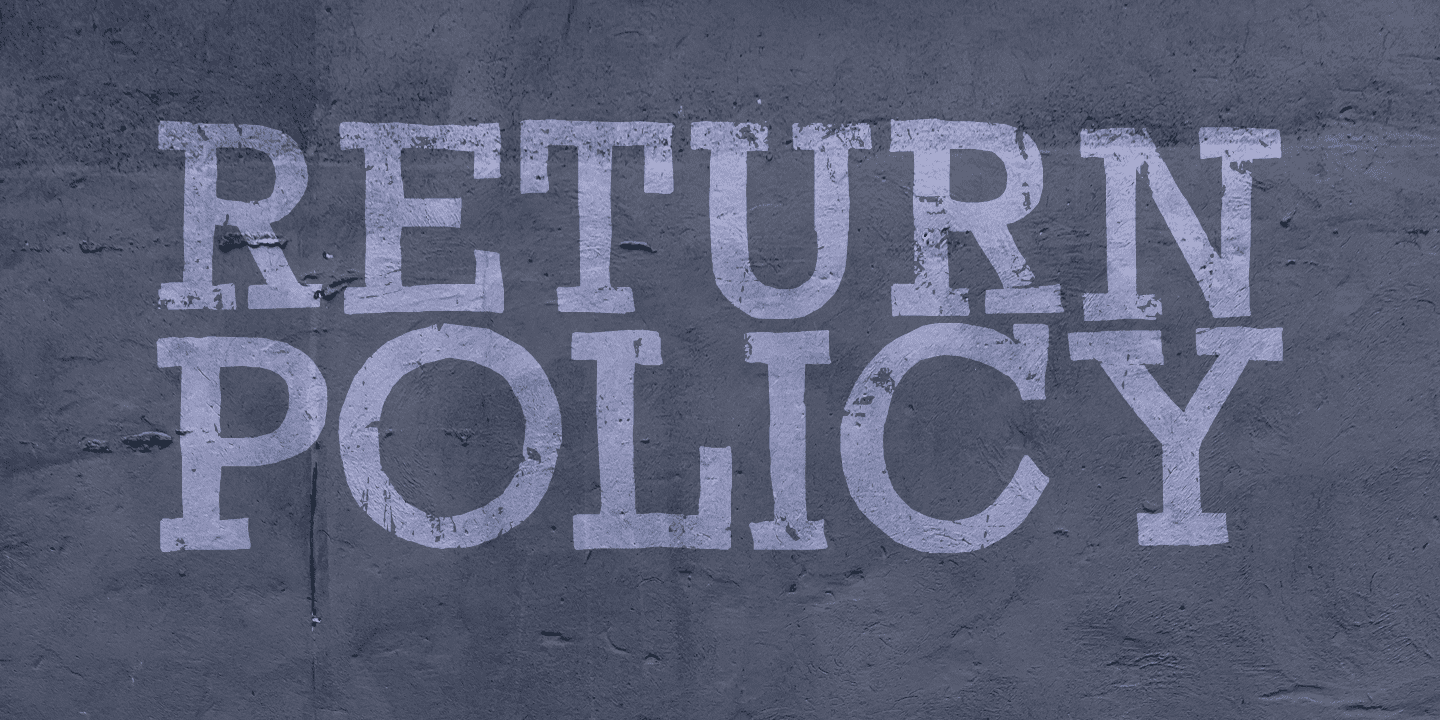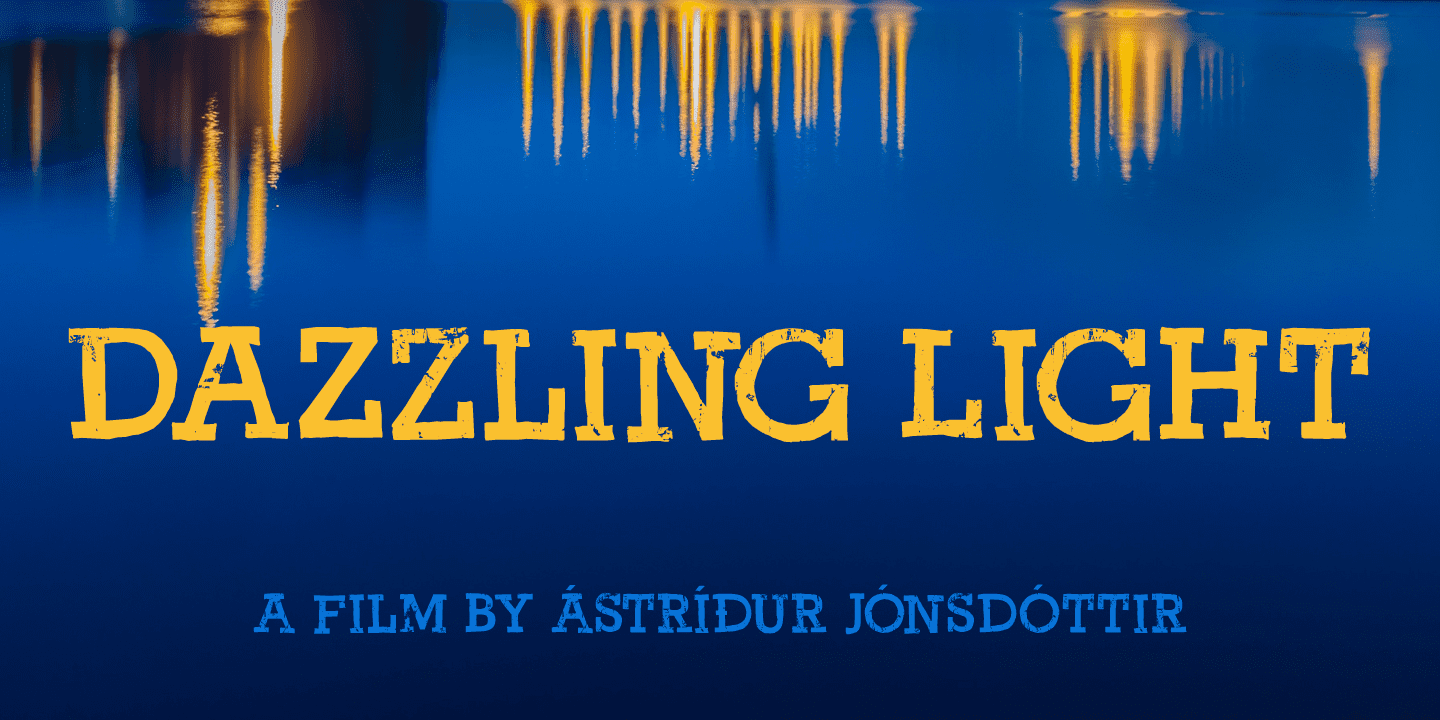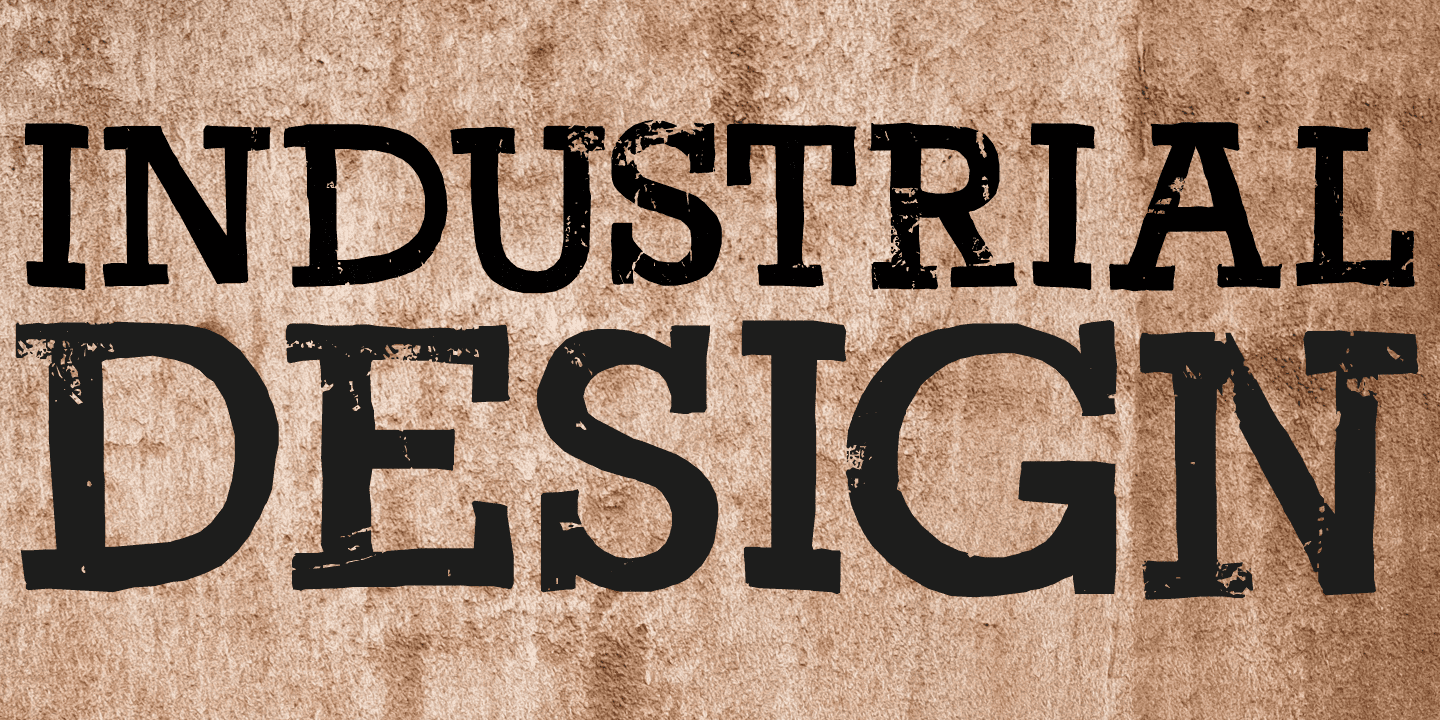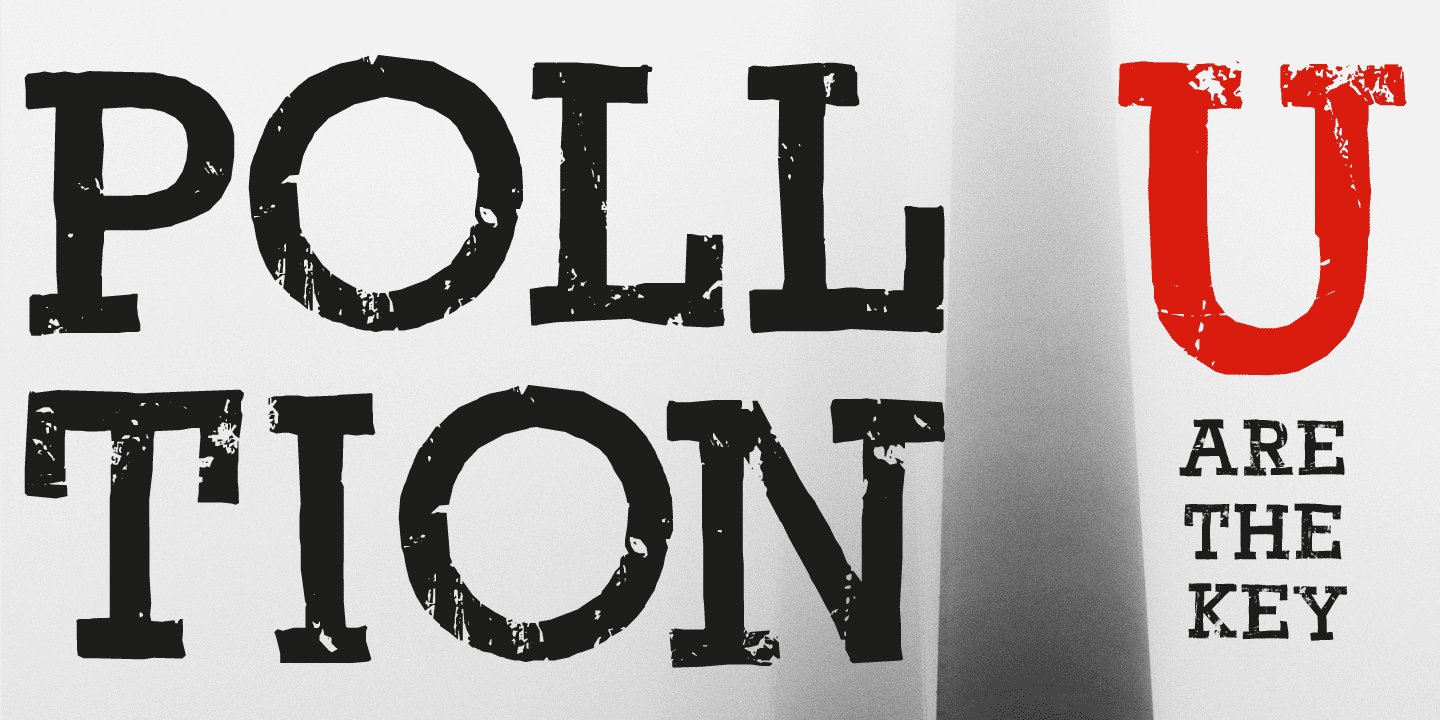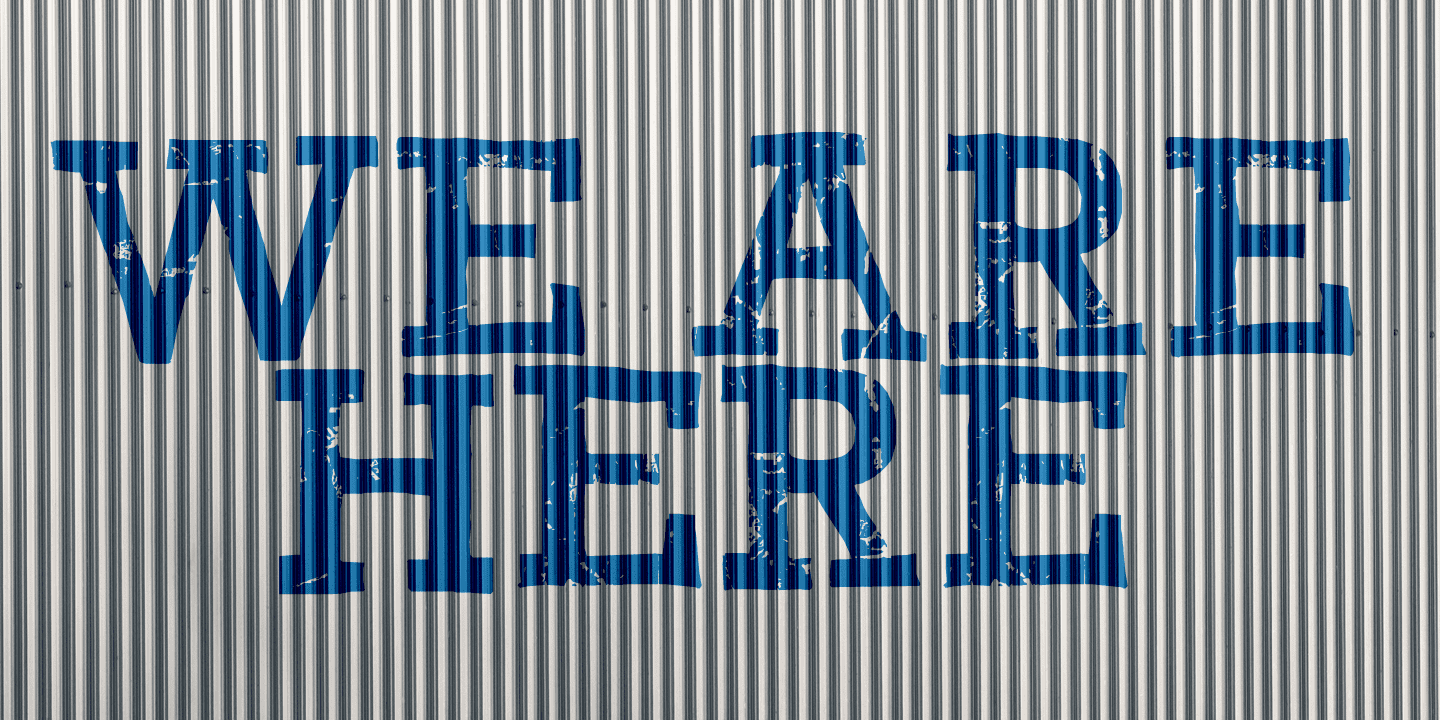
And… came up with this font and its name in the process! Return Policy is a hand drawn slab serif, inspired by a bunch of slab serifs from the early 20th century.
Return Policy has been given a ‘grunge’ overhaul, making it ideal for sturdy products, websites with an industrial look and manly posters.